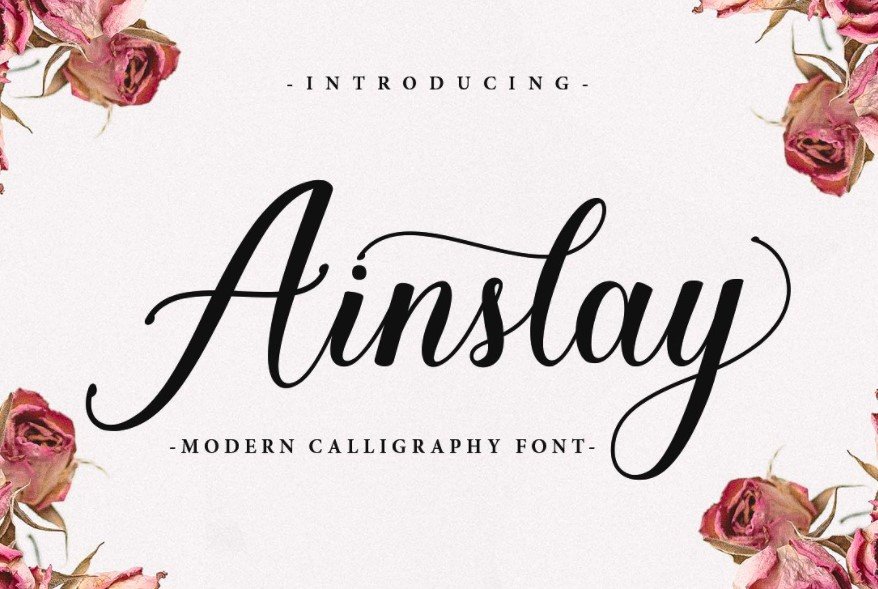
Hey there, we are going to share the latest, modern, and diverse designing font with you that is Ainslay Script Font that comes with tons of calligraphic features. This is a beautiful typeface to make websites headers, designs, covers, and other any graphic works for free.
You can download this typeface additional with lots of styles and font family which will give you the perfect look to your work. It has 230 glyphs, ligatures, and unique stylish characters layouts.